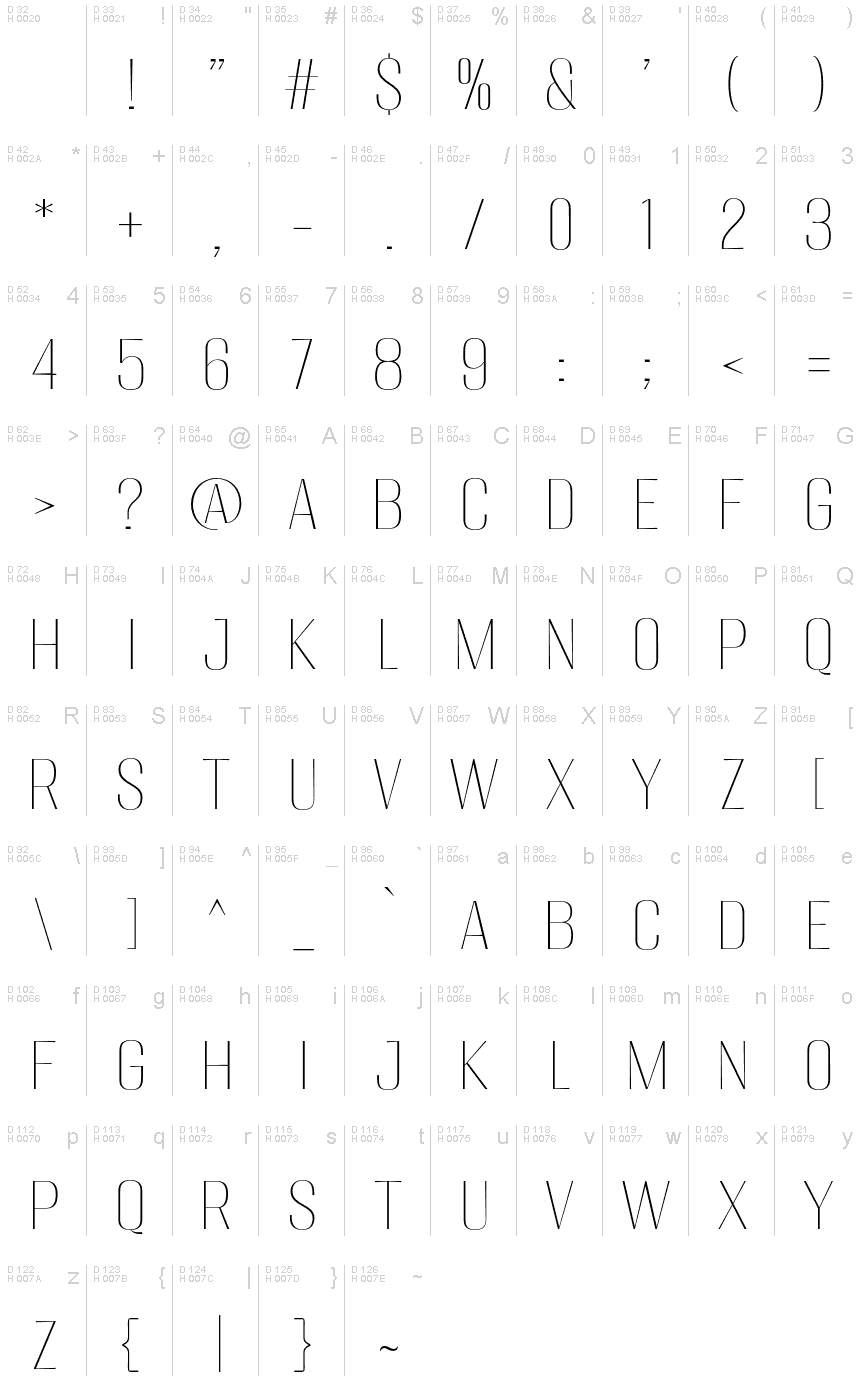
Migha-Thin
Migha Thin is a stunning sans serif font designed by Seniors Studio. This extra-light typeface is perfect for projects that require a modern and sophisticated look, such as elegant logos, minimalist websites, or fashion magazines. Its condensed width allows for efficient use of space while maintaining legibility, making it an ideal choice for print materials like business cards or brochures. With its clean lines and sleek design, Migha Thin is versatile enough to suit a range of creative projects that demand a refined and polished aesthetic. Add this font to your collection today and elevate your designs to the next level!